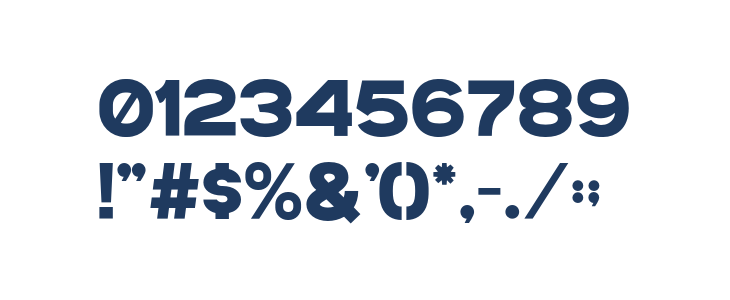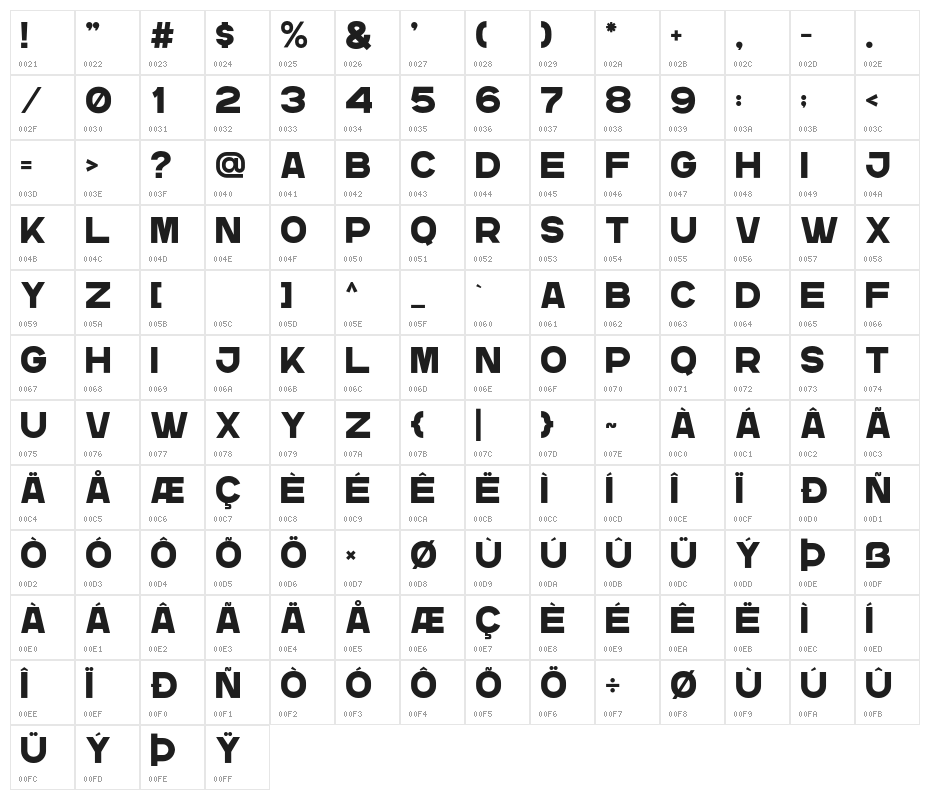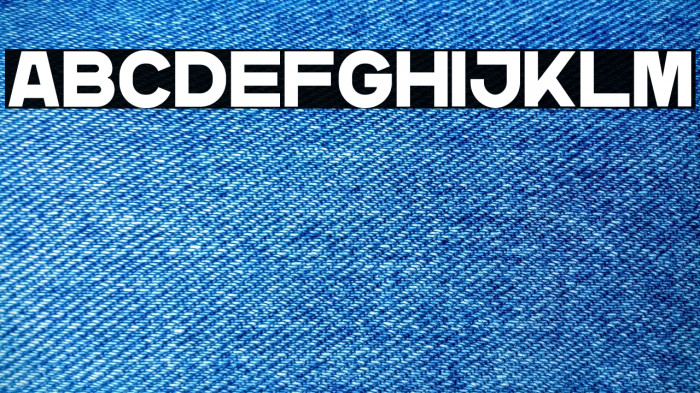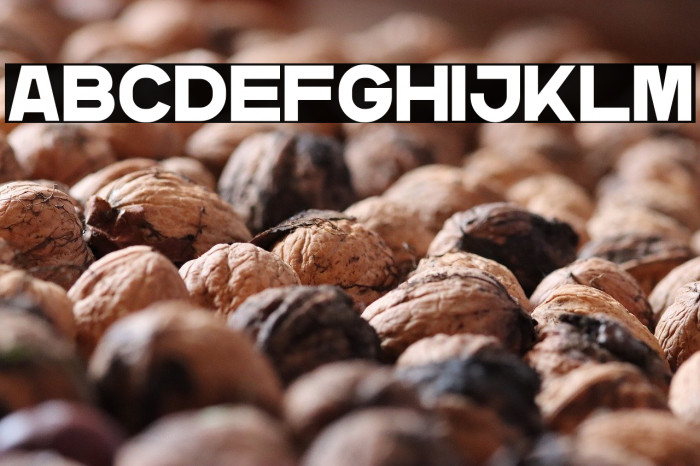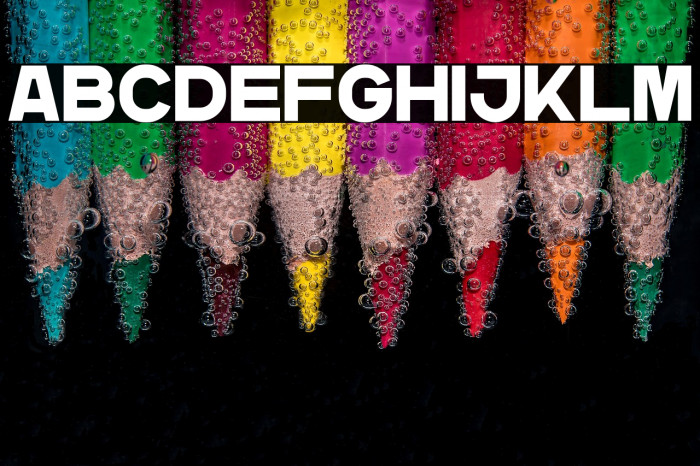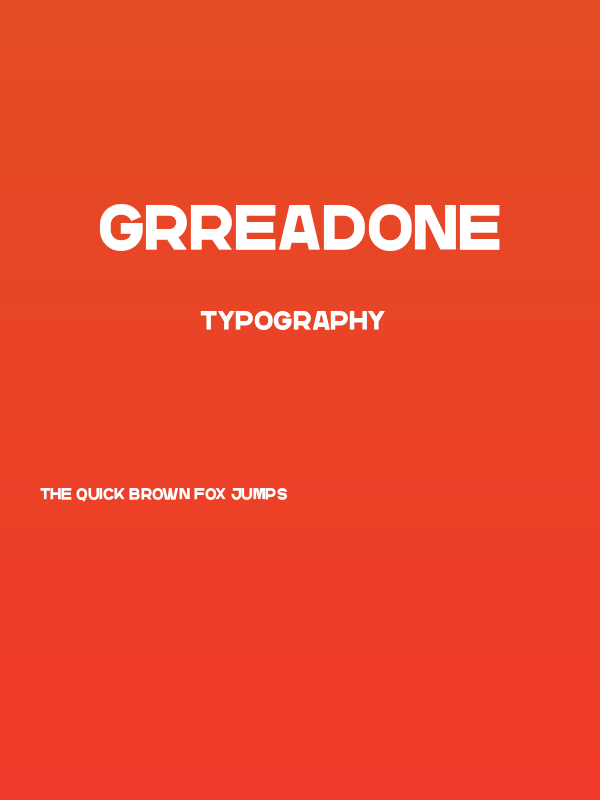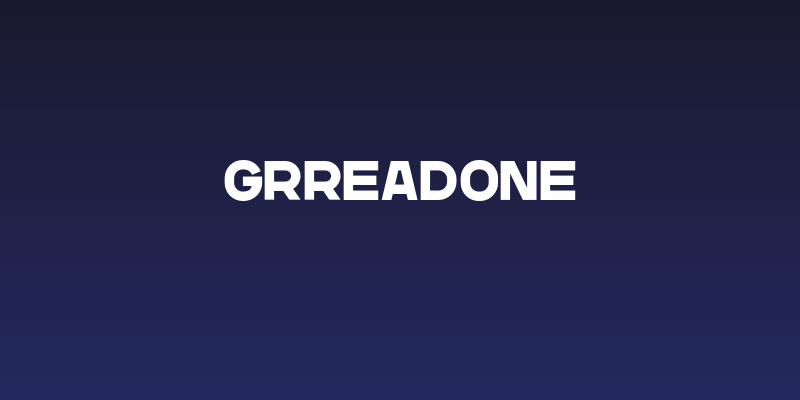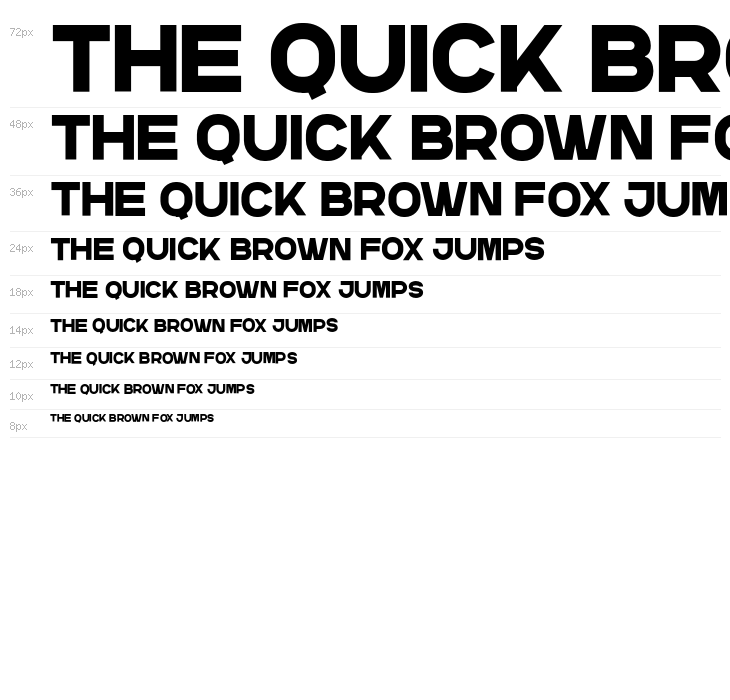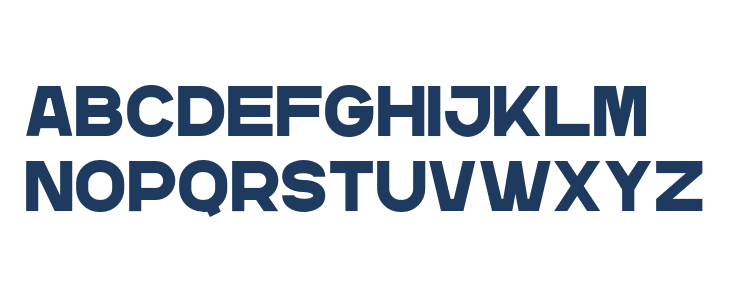
GRReadOne Font
GRReadOne Description
This bold and impactful font features a strong geometric structure with uniform stroke widths, creating a sense of stability and confidence. The characters are designed with a modern aesthetic, emphasizing clarity and readability. The uppercase letters are particularly striking, with a consistent height and width that contribute to a cohesive appearance. The numerals and special characters maintain the same boldness, ensuring they stand out in any context. This font is ideal for making a statement, whether in headlines, posters, or branding materials.
| Proposed Projects | Ideal for branding, advertising, headlines, and poster design. |